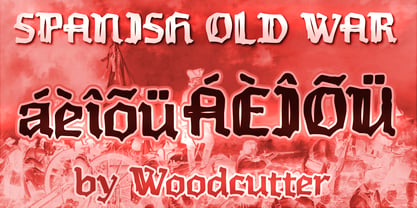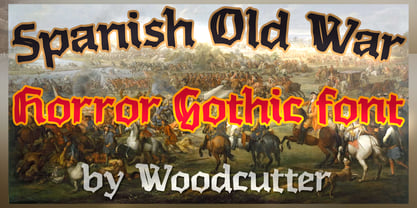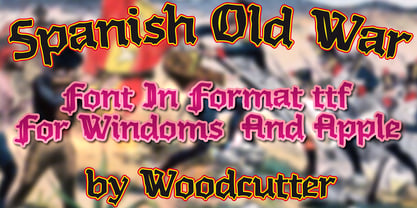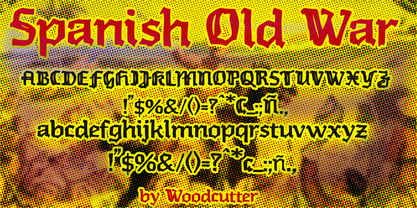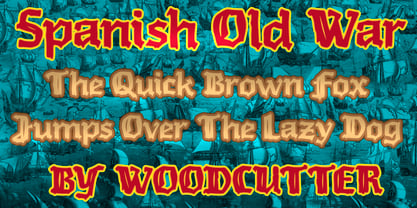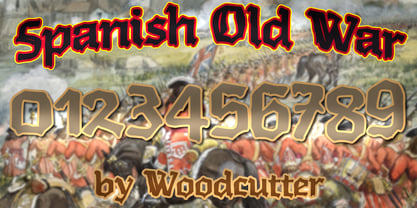
Spanish Old War
by Woodcutter
The Spanish Old War Font Family was designed by Jordi Manero and published by Woodcutter. Spanish Old War contains 1 styles. More about this family
"Spanish Old War" is a classic gothic-inspired typeface that evokes history, conflict, and solemnity, reinterpreted with a subtle and unsettling touch of horror. Designed in both uppercase and lowercase with full accent support, this font blends the structural elegance of traditional gothic lettering with a dark atmosphere filled with emotional tension. Its forms recall ancient manuscripts, war banners, and historical engravings shaped by the passage of time. The personality of "Spanish Old War" is built on firm strokes, balanced proportions, and sharp terminals that convey authority and character. Upon this classical foundation, a delicate dripping effect is introduced, as if ink—or blood—were slowly flowing from the characters. This detail is intentionally restrained, adding a narrative layer that enhances the gothic horror aesthetic without compromising readability or overall refinement. The result is a powerful and evocative typeface capable of communicating drama, epic presence, and mystery. "Spanish Old War" works especially well in projects that require a dark yet sophisticated identity, such as editorial covers, historical posters, music artwork, video games, film titles, or branding inspired by medieval and gothic themes. This font is ideal for designers seeking a typeface with an ancient soul, rich symbolism, and a disturbing undertone that suggests violence, decay, and memory—without falling into visual excess.
Designers: Jordi Manero
Foundry: Woodcutter